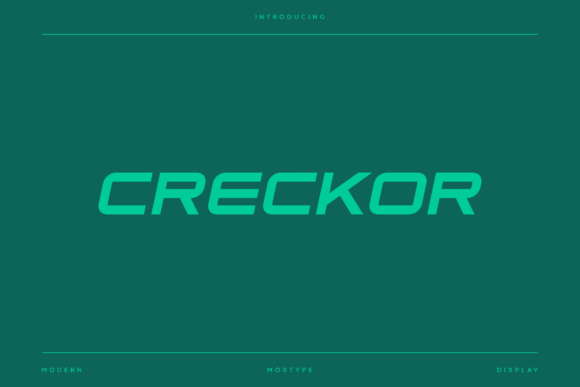
Introducing Creckor Font: The Ultimate Modern Sports Font for Bold Typography
In the world of typography, fonts play a crucial role in conveying the tone and personality of a brand or design. For sports, tech, action, and battle-themed projects, a bold and modern font is essential to grab attention and make a lasting impression. This is where Creckor Font comes in – a cutting-edge sports font designed specifically for branding, headings, and prominent typography needs.
What is Creckor Font?
Creckor Font is a modern sports font that boasts a fresh and new style, perfect for creating memorable designs. Its bold action style and modern feel make it an ideal choice for projects that require a strong and dynamic typography. Whether you’re working on a sports team logo, a tech startup brand, or an action-packed movie poster, Creckor Font is the perfect fit.
Key Features of Creckor Font
- Bold and Modern Style: Creckor Font features a bold and modern style that is perfect for making a statement.
- Fresh and New Design: The font’s fresh and new design ensures that your designs stand out from the crowd.
- Perfect for Sports and Action Themes: Creckor Font is specifically designed for sports, tech, action, and battle themes, making it an ideal choice for projects that require a bold and dynamic typography.
- Memorable Designs: The font’s unique style ensures that your designs are memorable and leave a lasting impression.
Uses of Creckor Font
Creckor Font is a versatile font that can be used in a variety of projects, including:
- Sports Team Logos: Creckor Font is perfect for creating bold and dynamic sports team logos that make a statement.
- Tech Startup Brands: The font’s modern and fresh style makes it an ideal choice for tech startup brands that want to convey a sense of innovation and forward-thinking.
- Movie and TV Posters: Creckor Font is perfect for creating eye-catching movie and TV posters that require a bold and dynamic typography.
- Advertising and Marketing Materials: The font’s unique style makes it an ideal choice for advertising and marketing materials that require a bold and attention-grabbing typography.
Benefits of Using Creckor Font
Using Creckor Font offers several benefits, including:
- Unique and Memorable Designs: Creckor Font’s unique style ensures that your designs are memorable and stand out from the crowd.
- Flexibility: The font’s versatility makes it suitable for a wide range of projects, from sports team logos to tech startup brands.
- Easy to Read: Despite its bold style, Creckor Font is easy to read, making it perfect for use in headings and titles.
- Scalable: The font is scalable, ensuring that it looks great in any size or resolution.
Tips for Using Creckor Font
To get the most out of Creckor Font, here are some tips to keep in mind:
- Use it for Headings and Titles: Creckor Font is perfect for use in headings and titles, where a bold and dynamic typography is required.
- Pair it with Other Fonts: The font can be paired with other fonts to create a unique and memorable design.
- Experiment with Different Sizes and Colors: Don’t be afraid to experiment with different sizes and colors to find the perfect combination for your design.
In conclusion, Creckor Font is a modern sports font that is perfect for creating bold and dynamic designs. Its fresh and new style, combined with its versatility and ease of use, make it an ideal choice for a wide range of projects. Whether you’re working on a sports team logo, a tech startup brand, or an action-packed movie poster, Creckor Font is the perfect fit.